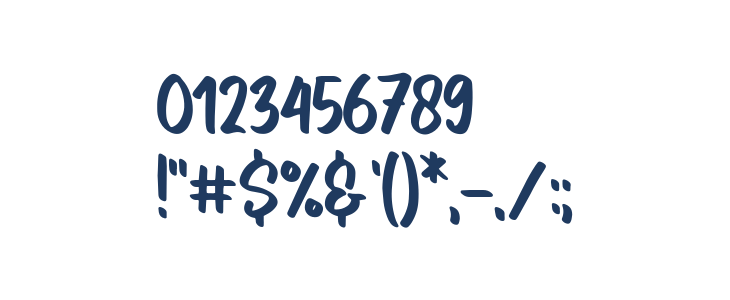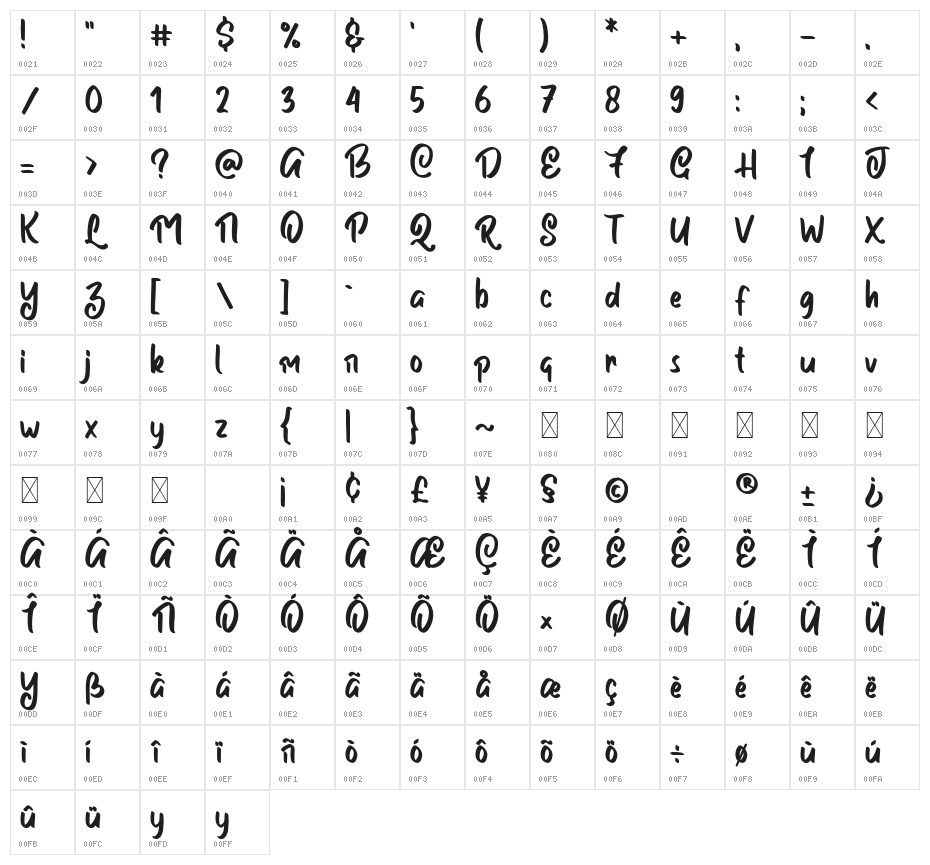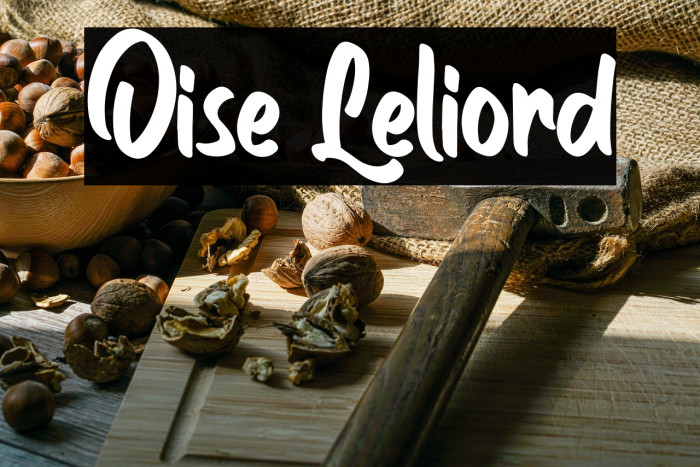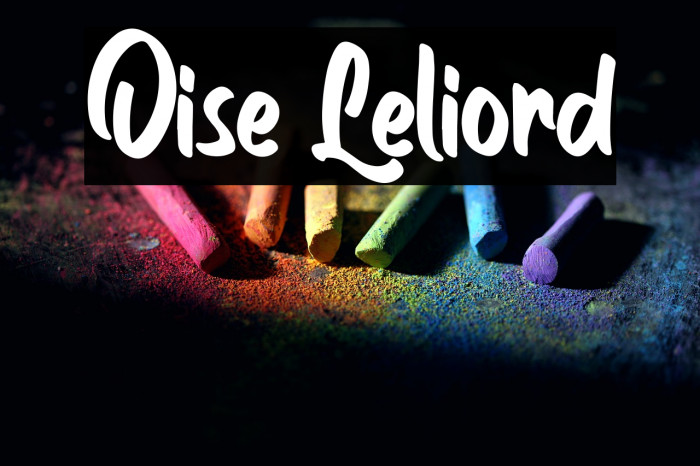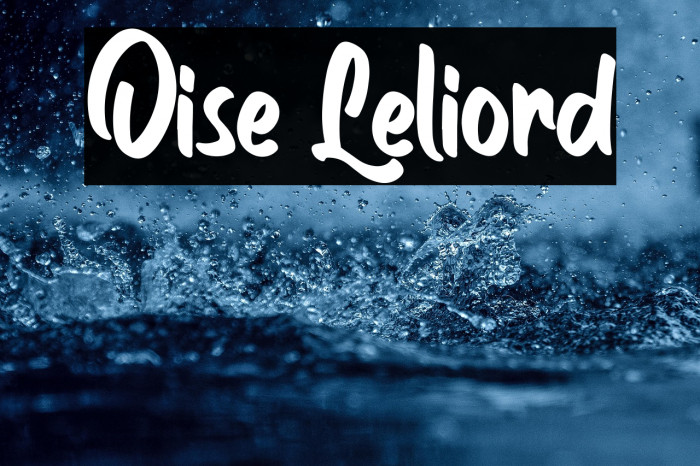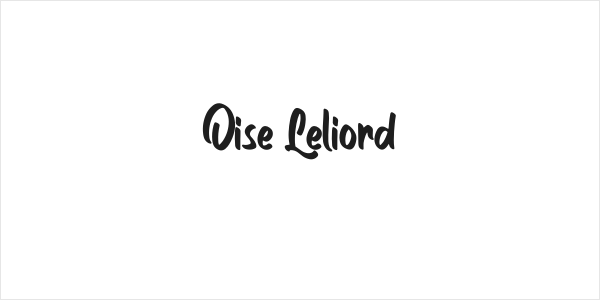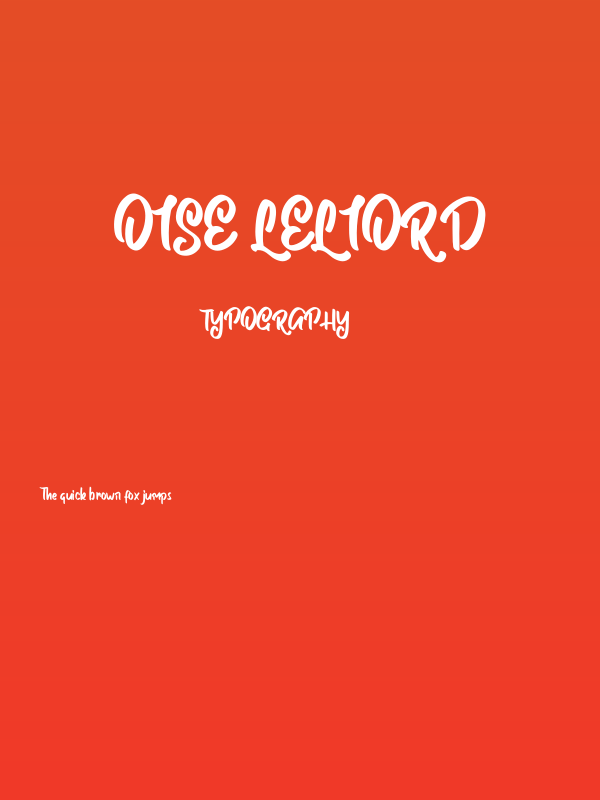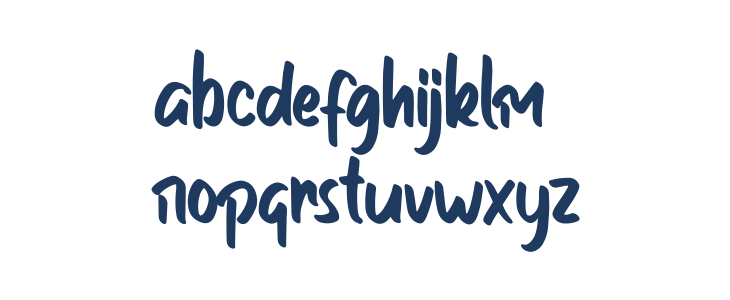
Oise Leliord Font
Oise Leliord Description
This font features a bold and expressive handwritten style, characterized by its fluid and dynamic strokes. The letters have a playful and artistic flair, with varying thickness that adds a sense of movement and energy. The uppercase and lowercase letters maintain a consistent style, with rounded edges and a slightly slanted orientation, giving it a casual yet sophisticated look. The numbers and special characters are equally bold and maintain the same lively aesthetic, making them stand out. This font is ideal for projects that require a personal touch or a creative, informal vibe.